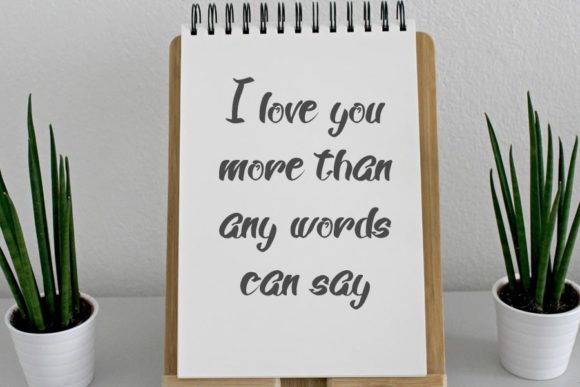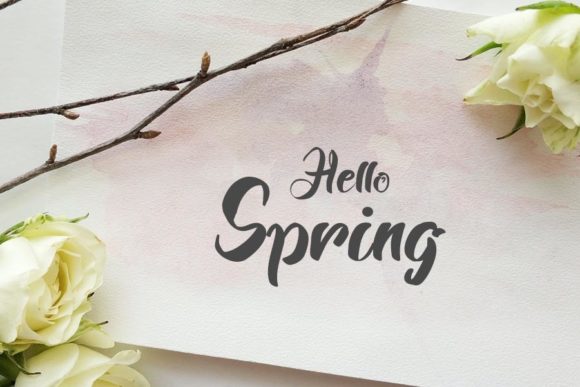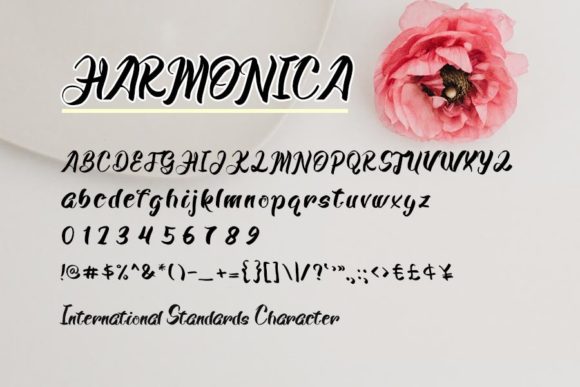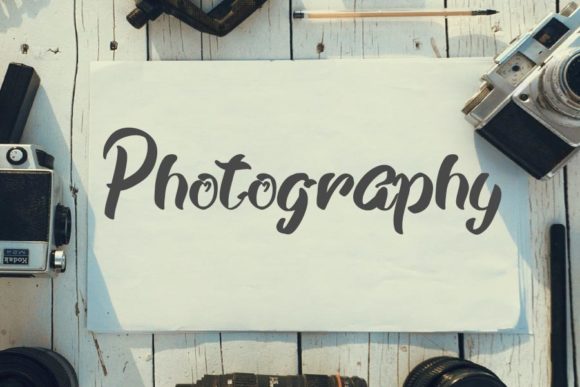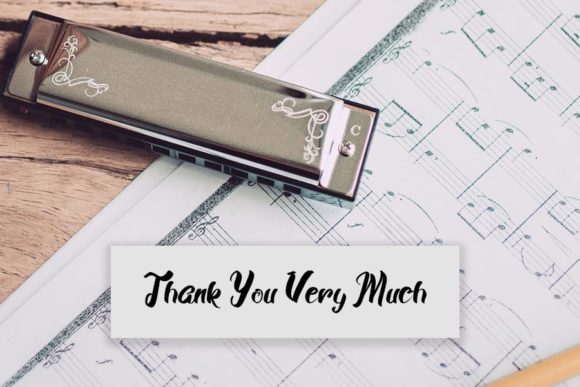
Harmonica Font
About Harmonica Font
Harmonica is a neat and simple handwritten font. Whether you’re looking for fonts for Instagram or calligraphy scripts for DIY projects, this font will turn any creative idea into a true piece of art!